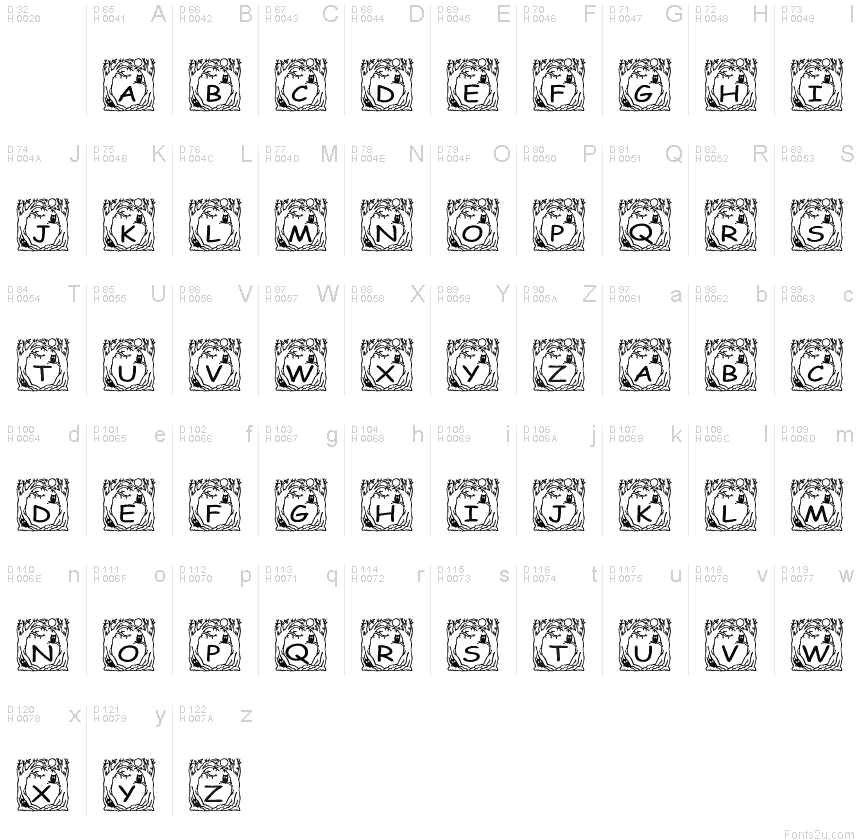
pf_holloween1
PF Holloween 1 by Scholarly Dragon Press is a free Halloween caps font built as a set of eerie illustrated initials. Each letter sits inside a haunted woodland frame of twisted bare branches, a round moon, and watchful owls, so the alphabet feels more like tiny title cards than plain lettering.
That makes it a natural free font for party invitations, trick-or-treat flyers, spooky classroom handouts, seasonal scrapbooking, and October poster headlines. Use it where a single letter or short word can carry the mood - monograms, cover lines, chapter openers, and sign-style titles work especially well because the repeating tree border gives every character its own little scene.